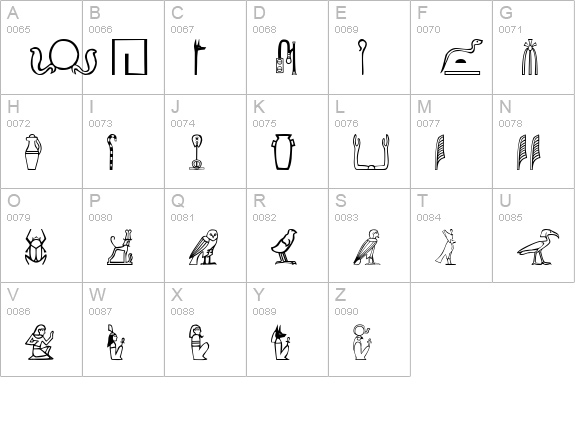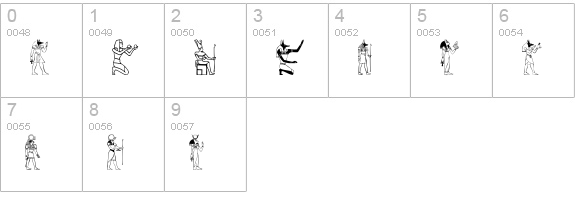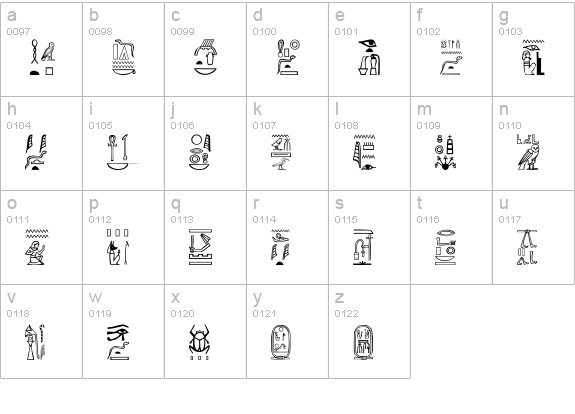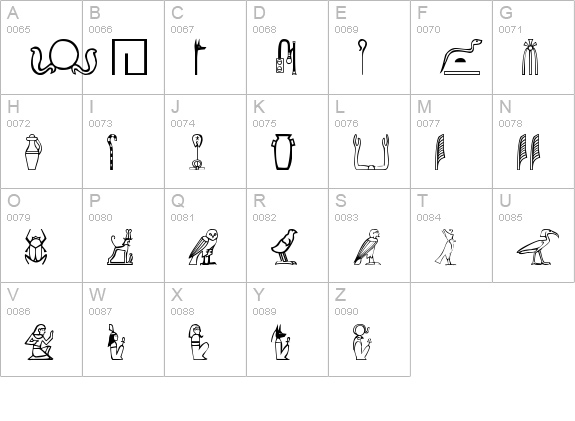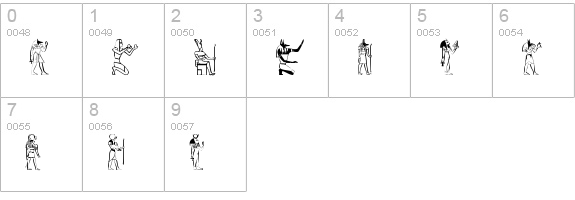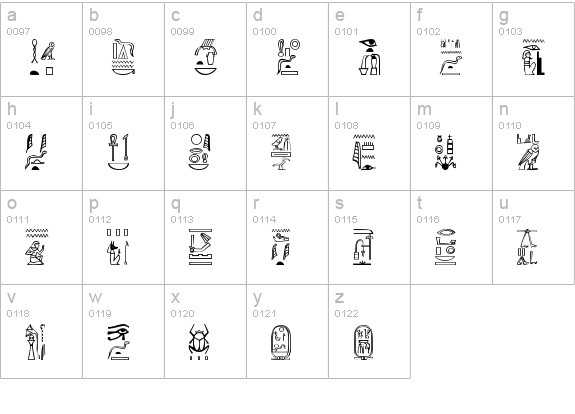
Greywolf Glyphs Font Details
Greywolf Glyphs font is a modern and stylish typeface that exudes sophistication and elegance. With its sleek lines and sharp edges, this font is perfect for adding a touch of class to any design project. The unique glyphs and characters of Greywolf Glyphs font offer a contemporary twist on traditional typography, making it stand out from the crowd. What sets Greywolf Glyphs font apart is that it is available for free download at FontsMarket.com. This means that you can easily access and use this stunning font in your personal or commercial projects without any cost. Whether you are designing a logo, creating a website, or crafting a print advertisement, Greywolf Glyphs font will elevate your design to the next level. Don't miss out on the opportunity to enhance your projects with the elegance and sophistication of Greywolf Glyphs font. Download it for free today at FontsMarket.com and start creating stunning designs that will leave a lasting impression.